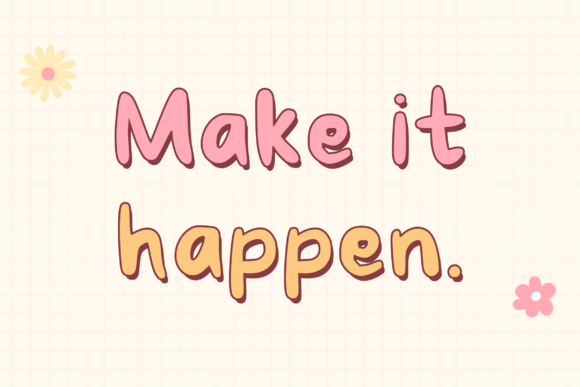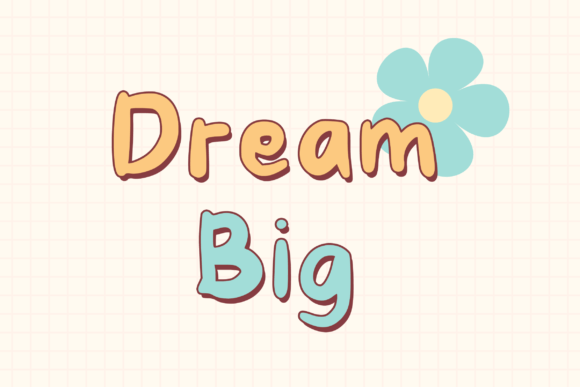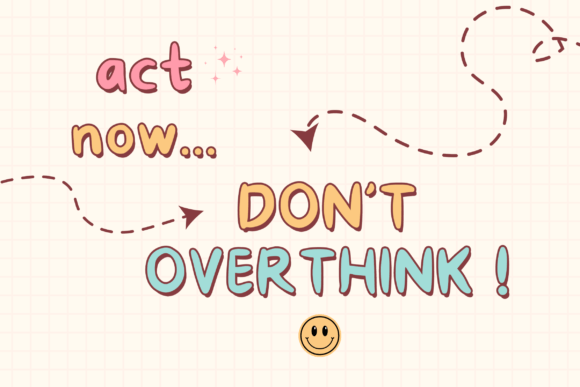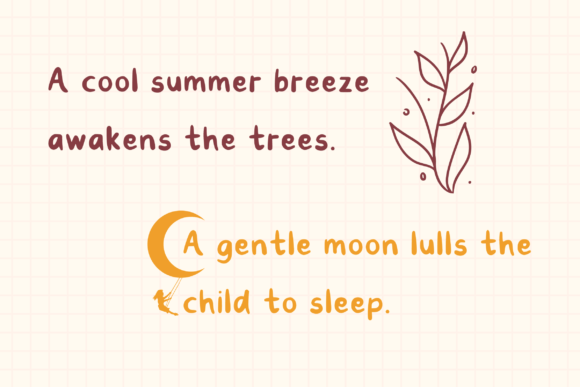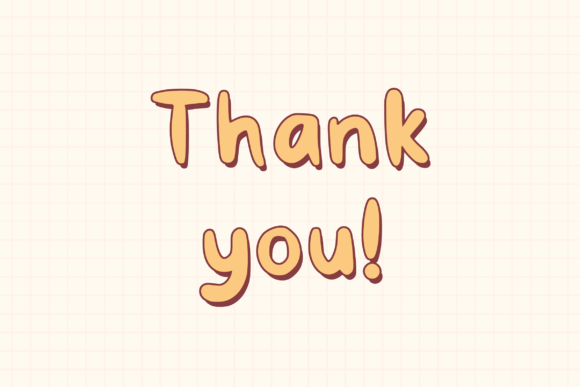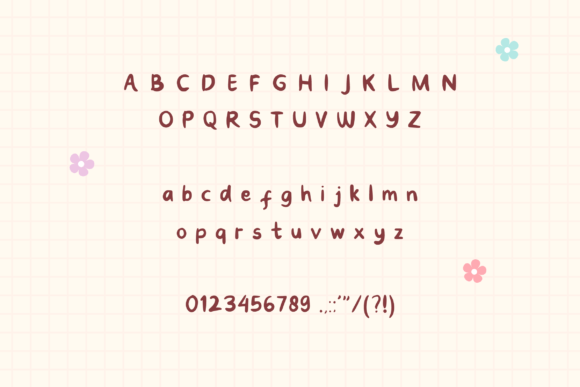
Introducing Good Vibes Font: The Perfect Addition to Your Creative Projects
Are you tired of using the same old fonts in your designs? Do you want to add a personal touch to your creations and make them stand out from the crowd? Look no further than Good Vibes Font, a simple, neat, and cute handwritten display font that’s perfect for infusing your projects with a dash of charm and positivity.
What is Good Vibes Font?
Good Vibes Font is a beautiful, handwritten display font designed to bring a touch of simplicity and elegance to your creative projects. Whether you’re working on a design, stickers, quotes, cards, planner, notes, journal, or scrapbook, this font is sure to add a delightful charm to your creations. With its clean and neat lines, Good Vibes Font is the perfect choice for designers and crafters who want to add a personal touch to their work.
Features of Good Vibes Font
So, what makes Good Vibes Font so special? Here are just a few of its key features:
- Simple and Neat Design: Good Vibes Font features a simple and neat design that’s perfect for adding a touch of elegance to your creations.
- Cute Handwritten Style: This font has a cute handwritten style that’s sure to add a personal touch to your designs.
- Perfect for Display Text: Good Vibes Font is designed specifically for display text, making it perfect for use in titles, headings, and other prominent text elements.
- Easy to Read: Despite its decorative style, Good Vibes Font is easy to read, making it perfect for use in a variety of creative projects.
Uses for Good Vibes Font
So, what can you use Good Vibes Font for? The possibilities are endless! Here are just a few ideas to get you started:
- Designs: Use Good Vibes Font to add a personal touch to your designs, whether you’re creating social media graphics, flyers, or brochures.
- Stickers: Add a touch of charm to your stickers with Good Vibes Font, perfect for use in planners, journals, and other creative projects.
- Quotes: Use Good Vibes Font to create inspiring and motivational quotes that are sure to spread positivity and joy.
- Cards: Add a personal touch to your greeting cards, invitations, and other correspondence with Good Vibes Font.
- Planners and Journals: Use Good Vibes Font to add a touch of elegance to your planners, journals, and other paper crafts.
Why Choose Good Vibes Font?
So, why should you choose Good Vibes Font for your creative projects? Here are just a few reasons:
- Unique and Eye-Catching: Good Vibes Font is a unique and eye-catching font that’s sure to make your creations stand out from the crowd.
- Perfect for Creative Projects: Good Vibes Font is perfect for use in a variety of creative projects, from designs and stickers to quotes and cards.
- Spreads Positive Energy: With its cheerful and uplifting design, Good Vibes Font is sure to spread positive energy and joy wherever it’s used.
In conclusion, Good Vibes Font is a simple, neat, and cute handwritten display font that’s perfect for infusing your creations with a personal touch. With its clean and neat lines, cute handwritten style, and easy-to-read design, this font is sure to add a delightful charm to your designs, stickers, quotes, cards, planners, notes, journals, and scrapbooks. So why wait? Download Good Vibes Font today and let its positive energy elevate your designs to the next level!
Tips and Tricks for Using Good Vibes Font
Here are a few tips and tricks for getting the most out of Good Vibes Font:
- Experiment with Different Sizes: Good Vibes Font looks great in a variety of sizes, so don’t be afraid to experiment and find the perfect size for your project.
- Pair with Other Fonts: Good Vibes Font pairs well with other fonts, so try combining it with different fonts to create a unique and eye-catching design.
- Use in Combination with Images: Good Vibes Font looks great in combination with images, so try using it to add a personal touch to your photos and illustrations.
Good Vibes Font: The Perfect Addition to Your Font Collection
In conclusion, Good Vibes Font is a must-have font for any designer or crafter looking to add a personal touch to their creations. With its simple and neat design, cute handwritten style, and easy-to-read font, this font is sure to bring a delightful charm to your designs, stickers, quotes, cards, planners, notes, journals, and scrapbooks. So why wait? Download Good Vibes Font today and start spreading positive energy and joy with your designs!